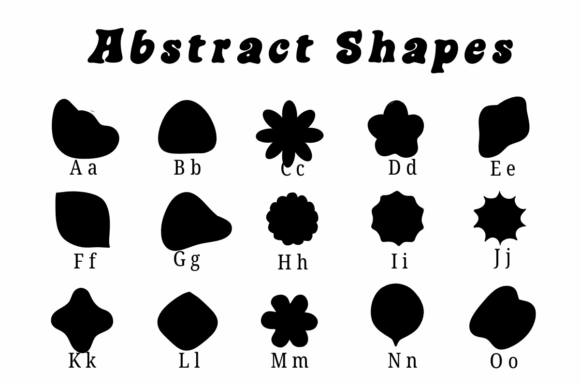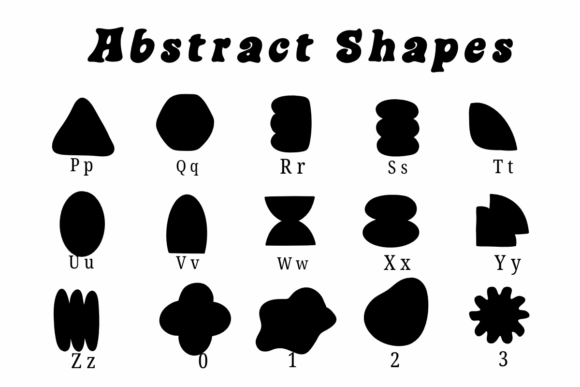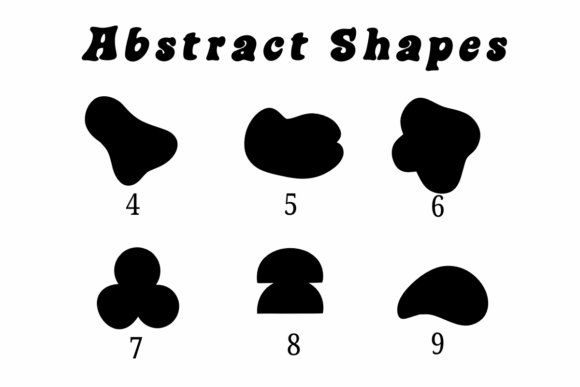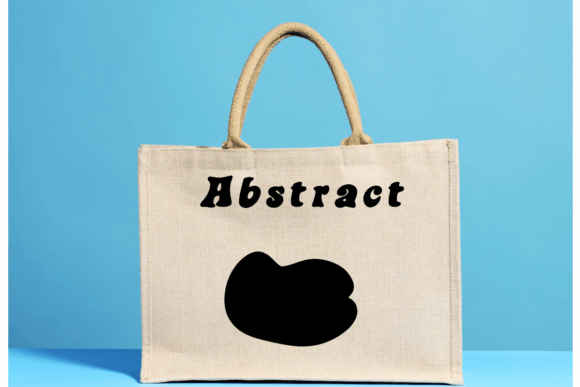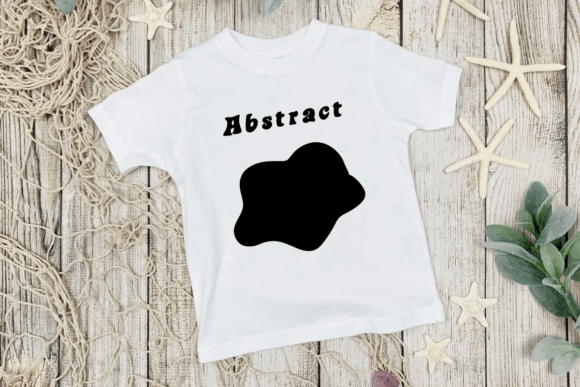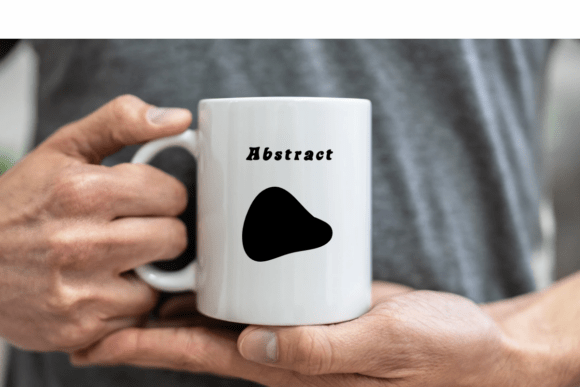
The Power of Abstract Shapes: Unlocking Creative Potential with this Unique Font
I’ll never forget the time I was working on a wedding invitation project, and my client asked me to create a custom design that reflected their quirky personalities. I spent hours scouring font libraries, but nothing seemed quite right. That’s when I stumbled upon the Abstract Shapes font, a dingbats font with an abstract theme that would change the game for my design projects.
An Honest Review: The Good, the Great, and the Quirky
- ✨ Unique and versatile abstract shapes that add a touch of personality to any design
- ✅ Easy to use and navigate, even for those new to dingbats fonts
- 🎨 Perfect for a wide range of creative projects, from wedding invitations to logos and DIY crafts
- 🤔 Some characters may not work well in certain contexts, such as in combination with other fonts or in justified text
- ⚠️ Limited language support, so it’s best used for English or similar languages
The Story Behind Abstract Shapes: A Designer’s Inspiration
The Abstract Shapes font was created by a talented designer who wanted to push the boundaries of traditional typography. Inspired by the world of art and architecture, they crafted a unique set of glyphs that reflect the beauty of abstract forms.
Q: What type of projects is Abstract Shapes best suited for?
A: Abstract Shapes is perfect for a wide range of creative projects, including wedding invitations, DIY crafts, logos, and decorations.
Q: Is Abstract Shapes easy to use for non-designers?
A: Absolutely! Abstract Shapes is designed to be user-friendly, even for those new to dingbats fonts or design.
Q: Can I combine Abstract Shapes with other fonts?
A: While it’s possible to combine Abstract Shapes with other fonts, it’s best to use it as a standalone font to maximize its impact.